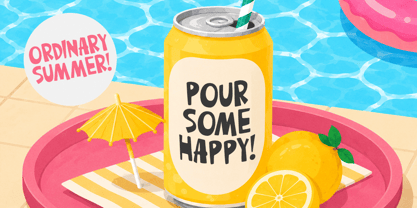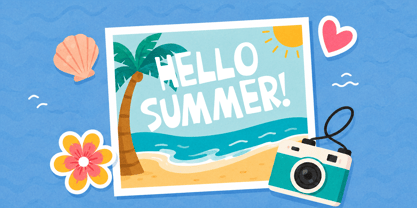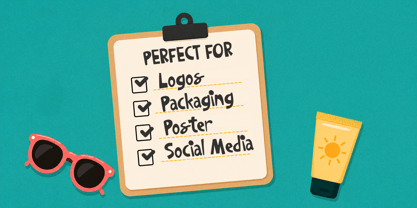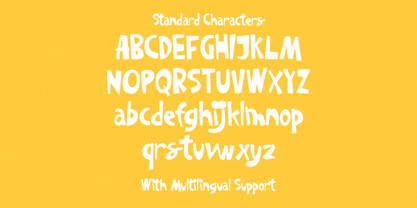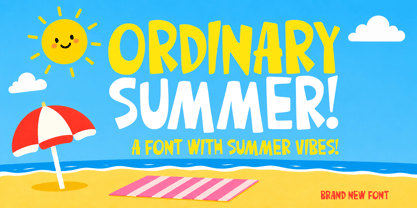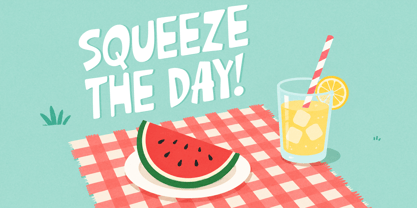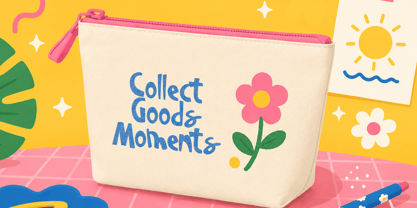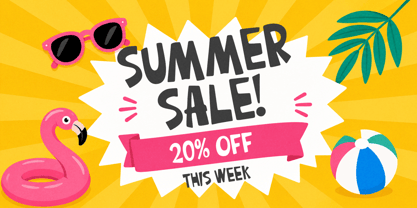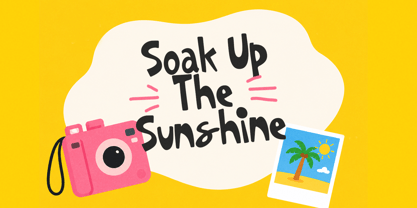
Ordinary Summer
by Littlehand
The Ordinary Summer Font Family was designed by Aryo Pamungkas and published by Littlehand. Ordinary Summer contains 2 styles and family package options. More about this family
Ordinary Summer captures the carefree feeling of long beach days, melting ice pops, and sunshine that seems to last forever. Its playful hand-drawn letterforms bounce with youthful energy, featuring quirky shapes and an easygoing rhythm that feels spontaneous and full of personality.
Features :
• Uppercase & lowercase
• Numbers and punctuation
• Multilingual Support